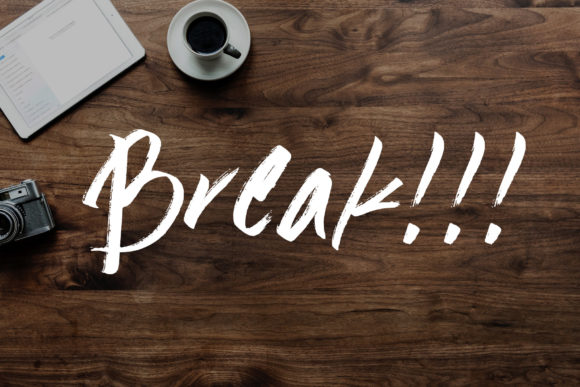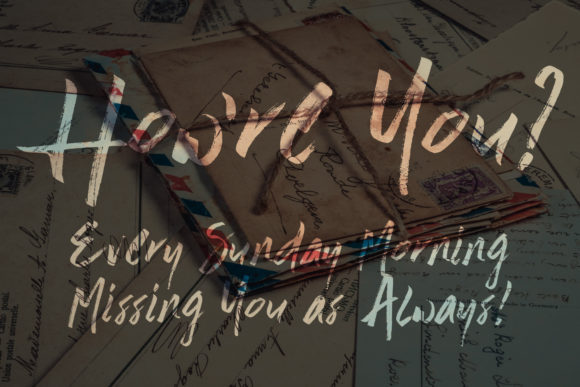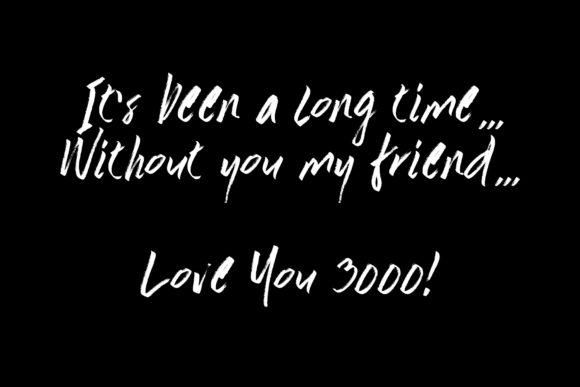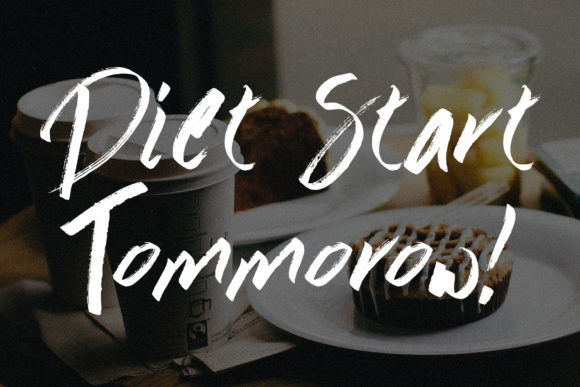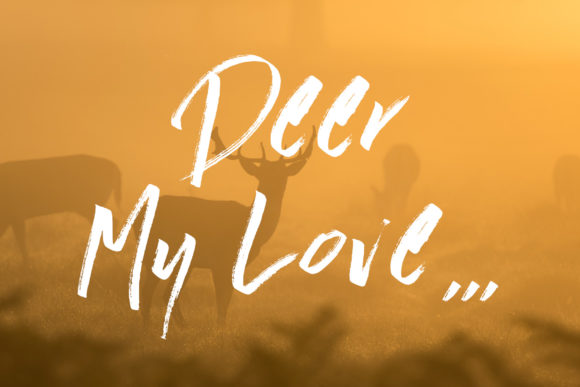
Long Days Font
About Long Days Font
Long Days is an authentic brush script. It has an incredibly natural look, and will add an authentic touch to any design idea.